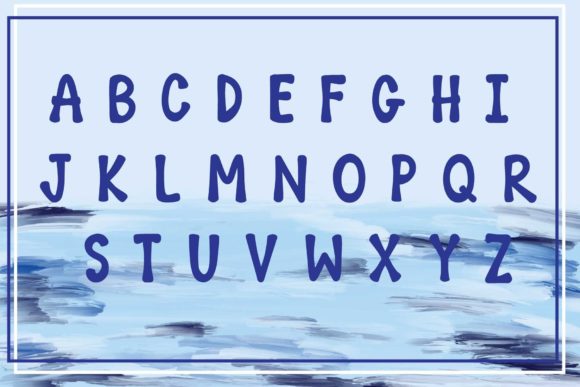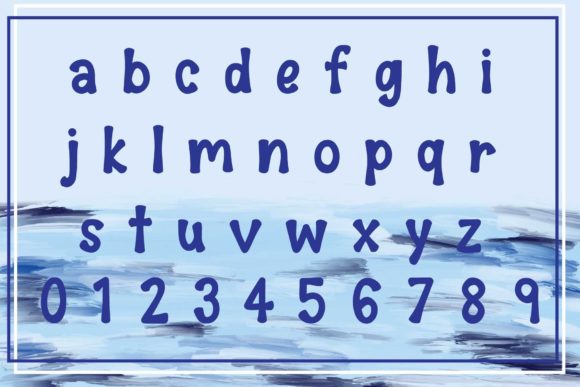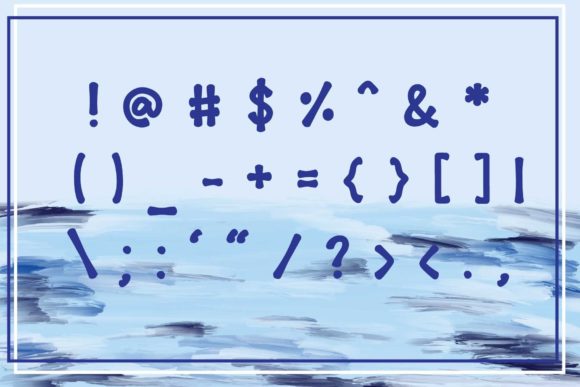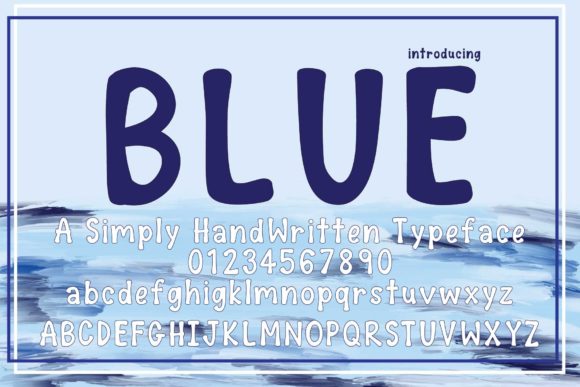
Discover the Versatility of Blue Font: Elevate Your Designs with a Cool and Fun Display Font
Are you on the hunt for a font that can instantly elevate your designs and add a touch of personality to your projects? Look no further than Blue Font! This cool and fun display font is perfect for designers and crafters who want to make a statement with their work. In this article, we’ll dive into the world of Blue Font, exploring its unique features, and the many ways you can use it to take your designs to the next level.
The Unique Style of Blue Font
Blue Font boasts a natural and unique style that sets it apart from other fonts on the market. Its effortless charm makes it incredibly fitting for a wide range of designs, from playful and whimsical to modern and sophisticated. Whether you’re working on a branding project, a website, or a craft project, Blue Font is sure to bring a fresh and exciting vibe to your work.
One of the standout features of Blue Font is its versatility. This font can be used in a variety of contexts, from headlines and titles to body text and captions. Its clean and crisp lines make it easy to read, while its distinctive style adds a touch of personality to any design.
Why Designers and Crafters Love Blue Font
Another reason designers and crafters love Blue Font is its flexibility. This font can be used in a wide range of projects, from digital designs to print materials. Whether you’re creating a social media graphic, a brochure, or a craft project, Blue Font is sure to be a great fit.
How to Use Blue Font in Your Projects
Ready to give Blue Font a try? Here are a few ways you can use this amazing font in your projects:
- Branding and logos: Use Blue Font to create a unique and memorable logo that reflects your brand’s personality.
- Web design: Add Blue Font to your website for a fresh and modern look that’s sure to impress your visitors.
- Social media graphics: Use Blue Font to create eye-catching social media graphics that stand out from the crowd.
- Craft projects: Add a personal touch to your craft projects with Blue Font, perfect for making handmade cards, gift tags, and more.
Tips and Tricks for Getting the Most Out of Blue Font
Here are a few tips and tricks for getting the most out of Blue Font:
- Experiment with different colors: Blue Font looks great in a range of colors, so don’t be afraid to experiment and find the perfect hue for your project.
- Mix and match with other fonts: Blue Font pairs well with a range of other fonts, so try combining it with different fonts for a unique look.
- Play with font sizes: Blue Font looks great in a range of font sizes, from large and bold to small and subtle.
In conclusion, Blue Font is a cool and fun display font that’s perfect for designers and crafters who want to add a touch of personality to their projects. Its unique style and versatility make it incredibly fitting for a wide range of designs, from playful and whimsical to modern and sophisticated. So why not give Blue Font a try and see the amazing results for yourself?
With its ease of use, flexibility, and distinctive style, Blue Font is sure to become a go-to font in your design arsenal. So add it confidently to your projects, and get ready to love the results!